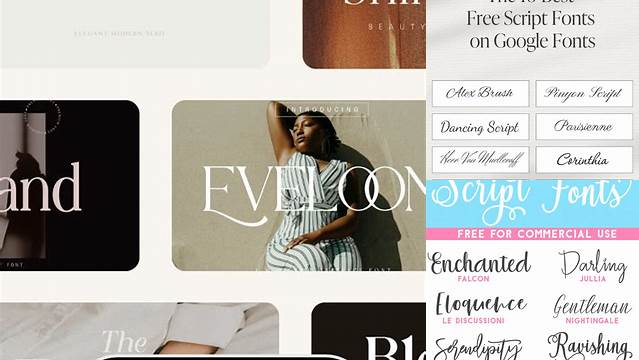
Best Free Script Fonts For Elegant Designs
Hey guys! Are you on the hunt for the best free script fonts to add a touch of elegance and personality to your projects? Look no further! In this comprehensive guide, we're diving deep into the world of script fonts, exploring a fantastic collection of free options that will help you elevate your designs. Whether you're working on wedding invitations, branding materials, websites, or social media graphics, the right script font can make all the difference. We’ll explore a curated selection of top-notch free script fonts, discuss their unique characteristics, and provide practical tips on how to use them effectively. So, let's get started and discover the perfect script font to bring your creative vision to life!
The world of typography is vast and varied, and script fonts hold a special place in it. Script fonts, with their fluid strokes and handwritten feel, can add a touch of sophistication, warmth, and personality to any design. However, finding the perfect script font can be a daunting task, especially when you're on a budget. That's where our guide comes in! We've scoured the internet to bring you a curated list of the best free script fonts available. These fonts are not only beautiful but also free for commercial use, making them a valuable resource for designers of all levels. We'll delve into different styles of script fonts, from elegant and formal to casual and playful, ensuring that you'll find the perfect fit for your project. We'll also discuss the importance of readability and context when choosing a script font, helping you avoid common pitfalls and create designs that are both visually appealing and effective. This guide is packed with practical tips and insights to help you make the most of these fantastic resources. Let’s get started!
What are Script Fonts?
Before we jump into the list, let’s quickly define what script fonts are. Script fonts are designed to mimic the flowing strokes of handwriting, giving them a personal and elegant touch. They come in various styles, from formal calligraphy to casual brush lettering, making them incredibly versatile. Script fonts draw their inspiration from traditional handwriting and calligraphy, aiming to replicate the fluidity and elegance of handwritten text. They are characterized by their flowing strokes, connecting letters, and decorative flourishes, which give them a distinctive and personal touch. This unique aesthetic makes them a popular choice for designs that need a humanistic and stylish feel. Understanding the different types of script fonts available is crucial for selecting the right one for your project. For example, formal script fonts, which closely resemble traditional calligraphy, are ideal for wedding invitations and elegant branding materials. These fonts often feature delicate lines and elaborate swirls, conveying a sense of sophistication and refinement. On the other hand, casual script fonts, which mimic more relaxed and modern handwriting styles, are perfect for projects that require a friendly and approachable tone, such as social media graphics and informal invitations. These fonts typically have thicker strokes and a more playful character.
Script fonts are commonly used in a wide array of design projects, each requiring a specific style and mood. Logos and branding materials benefit from script fonts by adding a touch of personality and memorability. A well-chosen script font can make a brand appear more sophisticated, trustworthy, or creative, depending on the desired image. Wedding invitations are another classic application for script fonts, where their elegance and romantic appeal help set the tone for the special occasion. The flowing lines and decorative elements of script fonts perfectly complement the celebratory and intimate nature of weddings. Websites and digital interfaces can also leverage script fonts to create a more engaging and personalized user experience. However, it’s essential to use script fonts sparingly and strategically in digital environments to maintain readability and avoid overwhelming the user. Print materials, such as posters, flyers, and brochures, can benefit from the visual interest that script fonts provide. By using script fonts for headings or accent text, designers can draw attention to key information and add a stylish flair to their layouts. Finally, social media graphics often incorporate script fonts to make posts stand out and convey a brand’s personality. Whether it’s for a quote, a promotional message, or a seasonal greeting, script fonts can help capture the audience’s attention and create a lasting impression.
Why Use Free Script Fonts?
Another key advantage of using free script fonts is the variety and quality available. The internet is brimming with talented designers who generously share their creations for free. This means you can find a wide range of high-quality script fonts that rival their paid counterparts. Many free script fonts are meticulously crafted with attention to detail, featuring elegant letterforms, smooth curves, and stylistic alternates. They often include a comprehensive set of characters, including uppercase and lowercase letters, numbers, punctuation marks, and special symbols, providing designers with the tools they need to create professional-looking designs. The availability of diverse styles within the realm of free script fonts ensures that designers can find the perfect match for any project. Whether it's a formal script for an elegant invitation, a playful script for a children's book, or a modern script for a branding campaign, the options are virtually limitless. The vibrant community of font designers and enthusiasts also contributes to the continuous growth and improvement of free font resources. Designers often provide updates and refinements to their fonts based on user feedback, ensuring that these fonts remain relevant and effective.
Top Free Script Fonts
Alright, let's get to the good stuff! Here are some of the best free script fonts that you can download and use today:
1. Balqis Font
Balqis is a beautifully flowing script font that exudes elegance and charm. Its delicate strokes and graceful curves make it perfect for wedding invitations, logos, and branding materials. Balqis is a stunning script font that effortlessly blends elegance and playfulness. Its flowing strokes and delicate curves make it an excellent choice for a variety of design projects, particularly those that require a touch of sophistication and personality. The font's unique characteristics, such as its subtle variations in stroke thickness and its graceful swashes, contribute to its overall visual appeal, making it a standout option among free script fonts. One of the primary uses for Balqis is in wedding invitations. The font's romantic and refined aesthetic perfectly complements the celebratory nature of weddings, adding a touch of elegance to the invitation suite. Its readability and graceful appearance ensure that the important details of the event are conveyed clearly while maintaining a stylish look. Balqis also works exceptionally well for logos and branding materials. The font's distinctive character can help a brand stand out and create a memorable impression. Whether used for a high-end boutique, a creative agency, or a lifestyle brand, Balqis can add a touch of sophistication and personality to the brand's visual identity. The versatility of Balqis extends to various other design applications. It is an excellent choice for greeting cards, where its elegant script can add a heartfelt and personal touch. Similarly, Balqis can be used in social media graphics to create visually appealing posts that capture the audience's attention. Its flowing lines and decorative elements make it ideal for headlines, quotes, and promotional messages, ensuring that the content stands out in a crowded digital landscape. In print materials, such as posters and flyers, Balqis can be used to add a touch of flair and elegance. Its graceful appearance makes it particularly effective for headings and accent text, drawing attention to key information and enhancing the overall design. The font's readability and visual appeal make it a valuable asset for any print project.
2. Great Vibes Font
If you’re looking for a classic calligraphy style, Great Vibes is an excellent choice. This font has elegant loops and flourishes, perfect for formal invitations and sophisticated designs. Great Vibes is a beautifully crafted script font that embodies elegance and sophistication. Its flowing letterforms and graceful loops make it an ideal choice for projects that require a touch of formality and refinement. The font's unique characteristics, such as its balanced proportions and delicate strokes, contribute to its timeless appeal, making it a standout option among free script fonts. A primary application for Great Vibes is in formal invitations. The font's elegant and refined aesthetic makes it perfect for events such as weddings, galas, and other special occasions. Its readability and graceful appearance ensure that the important details of the event are conveyed clearly while maintaining a sophisticated look. Great Vibes also works exceptionally well for branding materials that aim to convey a sense of luxury and sophistication. The font's classic calligraphy style can add a touch of elegance to logos, business cards, and other branding elements. Whether used for a high-end brand or a boutique service, Great Vibes can enhance the brand's visual identity and create a memorable impression. The versatility of Great Vibes extends to various other design applications. It is an excellent choice for greeting cards, where its elegant script can add a heartfelt and personal touch. Similarly, Great Vibes can be used in website headers and other prominent text elements to create a polished and refined look. Its flowing lines and decorative elements make it ideal for capturing the audience's attention and conveying a sense of sophistication. In print materials, such as certificates and awards, Great Vibes can be used to add a touch of formality and prestige. Its graceful appearance makes it particularly effective for headings and body text, enhancing the overall design and conveying a sense of accomplishment.
3. Honey Script Font
Honey Script is a charming and playful font with a handwritten feel. It’s perfect for projects that need a touch of warmth and personality, such as greeting cards and social media graphics. Honey Script is a delightful font that captures the essence of handwritten charm and playfulness. Its whimsical letterforms and flowing strokes make it an excellent choice for projects that aim to convey warmth and personality. The font's unique characteristics, such as its slightly irregular lines and cheerful aesthetic, contribute to its overall appeal, making it a standout option among free script fonts. One of the primary uses for Honey Script is in greeting cards. The font's friendly and approachable style makes it perfect for adding a personal touch to various occasions, from birthdays to thank-you notes. Its readability and cheerful appearance ensure that the message is conveyed clearly while maintaining a heartfelt tone. Honey Script also works exceptionally well for social media graphics. The font's playful character can help create engaging posts that capture the audience's attention. Whether used for quotes, announcements, or promotional messages, Honey Script can add a touch of personality and make the content stand out in a crowded digital landscape. The versatility of Honey Script extends to various other design applications. It is an excellent choice for children's books and educational materials. The font's whimsical style can make learning more fun and engaging for young readers. Similarly, Honey Script can be used in branding materials for businesses that aim to project a friendly and approachable image. Its casual and inviting aesthetic makes it suitable for logos, signage, and other branding elements. In web design, Honey Script can be used sparingly for headings and accents to create a warm and welcoming feel. Its unique character can help break up the monotony of more formal fonts and add a touch of personality to the overall design.
4. Bebas Neue Font
Okay, okay, I know what you're thinking – Bebas Neue isn't technically a script font. But hear me out! This clean and modern sans-serif font pairs beautifully with script fonts, making it a valuable addition to your font arsenal. Bebas Neue is a widely recognized and highly versatile sans-serif font that has become a staple in the design community. While not a script font, its clean lines and modern aesthetic make it an excellent choice for a variety of design projects. The font's unique characteristics, such as its tall and narrow letterforms, contribute to its contemporary appeal, making it a valuable addition to any designer's toolkit. One of the primary uses for Bebas Neue is in headlines and headings. The font's bold and impactful appearance ensures that titles stand out and capture the audience's attention. Its readability and clean design make it suitable for both print and digital applications, ensuring that the message is conveyed clearly. Bebas Neue also works exceptionally well for branding materials. The font's modern and professional aesthetic can help create a strong and cohesive brand identity. Whether used for logos, signage, or marketing collateral, Bebas Neue can add a touch of sophistication and credibility to the brand's visual communication. The versatility of Bebas Neue extends to various other design applications. It is an excellent choice for posters and flyers, where its bold appearance can effectively convey key information and attract viewers. Similarly, Bebas Neue can be used in website design for navigation menus, body text, and other essential elements. Its clean and legible design ensures a smooth user experience and enhances the overall aesthetic of the website. In editorial design, Bebas Neue can be used for magazine headlines, article titles, and captions. Its modern style can add a contemporary touch to publications and make the content more engaging. The font's adaptability to different design contexts makes it a reliable and valuable choice for various projects.
5. Kaushan Script Font
Kaushan Script is a bold and dynamic script font with a slightly rough texture. It’s perfect for adding a vintage or rustic touch to your designs. Kaushan Script is a distinctive and bold script font that brings a touch of vintage charm to any design project. Its textured strokes and dynamic letterforms create a unique and eye-catching appearance, making it an excellent choice for projects that require a rustic or handcrafted feel. The font's unique characteristics, such as its irregular lines and bold weight, contribute to its overall appeal, making it a standout option among free script fonts. One of the primary uses for Kaushan Script is in vintage-themed designs. The font's textured appearance and bold style make it perfect for creating posters, logos, and other materials that evoke a sense of nostalgia. Its readability and distinctive character ensure that the design stands out while maintaining a classic aesthetic. Kaushan Script also works exceptionally well for branding materials that aim to convey a sense of authenticity and craftsmanship. The font's rustic charm can add a personal touch to logos, business cards, and other branding elements. Whether used for a local coffee shop, a handmade goods store, or a vintage clothing boutique, Kaushan Script can enhance the brand's visual identity and create a memorable impression. The versatility of Kaushan Script extends to various other design applications. It is an excellent choice for T-shirt designs, where its bold and textured appearance can effectively convey a message or design element. Similarly, Kaushan Script can be used in posters and flyers to create a dynamic and attention-grabbing layout. Its unique style can help the design stand out and attract viewers. In social media graphics, Kaushan Script can be used for quotes, announcements, and promotional messages. Its bold and textured look ensures that the content captures the audience's attention and conveys a strong visual impact. The font's adaptability to different design contexts makes it a valuable asset for various projects.
Tips for Using Script Fonts
Now that you have a fantastic collection of free script fonts at your disposal, let's talk about how to use them effectively. Here are a few tips to keep in mind:
1. Readability is Key
While script fonts are beautiful, they can sometimes be challenging to read, especially in large blocks of text. Always prioritize readability by using script fonts sparingly, ideally for headings, logos, or short phrases. Readability is paramount when it comes to using script fonts, as their intricate and flowing designs can sometimes compromise legibility, particularly in extensive blocks of text. To ensure your message is effectively conveyed, it's crucial to use script fonts strategically and sparingly, focusing on their impact in specific design elements. Script fonts excel in headings and titles, where their decorative flair can capture attention and set the tone for the content. By limiting their use to these key areas, you can maintain readability while adding a touch of elegance and personality to your design. For body text, which requires sustained reading, it’s best to opt for more straightforward sans-serif or serif fonts that offer optimal legibility. Another effective way to use script fonts is in logos and branding materials, where a distinctive script font can create a memorable and recognizable brand identity. However, even in this context, it’s essential to ensure that the font remains legible at various sizes and in different applications. A well-designed logo should be easily readable whether it’s displayed on a business card, a website, or a billboard. Short phrases and quotes are also ideal candidates for script fonts. Their decorative nature can add emphasis and visual interest to these elements, making them stand out within the overall design. When using script fonts in this manner, consider the length of the phrase and the spacing between letters to maintain clarity. Overcrowded or overly complex script fonts can become difficult to read, diminishing their impact. In general, it's wise to pair script fonts with simpler, more legible fonts for body text and supporting elements. This contrast in styles not only enhances readability but also creates visual harmony and balance in the design. For instance, pairing an elegant script font with a clean sans-serif font can create a sophisticated and modern look. Ultimately, the key to using script fonts effectively is to strike a balance between aesthetics and legibility, ensuring that your design is both visually appealing and easy to read.
2. Consider the Context
The style of script font you choose should match the overall tone and theme of your project. A formal calligraphy script is perfect for a wedding invitation, while a playful brush script might be better suited for a children's book. The context of your design project plays a crucial role in determining the appropriate script font. The style of the font should align with the overall tone, theme, and purpose of the design to ensure a cohesive and impactful visual message. A font that feels out of place can detract from the design’s effectiveness and create a jarring experience for the viewer. For formal occasions such as weddings, galas, and upscale events, elegant calligraphy-style script fonts are an excellent choice. These fonts exude sophistication and refinement, perfectly complementing the celebratory and formal nature of the event. Their graceful strokes and decorative flourishes add a touch of luxury and timelessness to invitations, programs, and other event materials. On the other hand, playful brush script fonts are better suited for projects that require a more casual and friendly tone, such as children’s books, informal invitations, and social media graphics. These fonts often feature a handwritten feel, with slightly irregular lines and a cheerful aesthetic, making them ideal for conveying warmth and personality. Vintage-themed designs benefit from script fonts that have a rustic or textured appearance. These fonts evoke a sense of nostalgia and craftsmanship, making them perfect for logos, posters, and branding materials that aim to capture a vintage aesthetic. The slightly worn or imperfect look of these fonts can add character and authenticity to the design. When designing for modern brands and businesses, it’s essential to choose script fonts that strike a balance between elegance and contemporary style. Clean and legible script fonts with minimal ornamentation can convey a sense of sophistication without appearing overly formal. Pairing these fonts with modern sans-serif typefaces can create a polished and professional look. Ultimately, understanding the context of your project will guide you in selecting the script font that best conveys the intended message and aligns with the overall design aesthetic. Consider the audience, the purpose of the design, and the desired emotional response to ensure that your font choice enhances the effectiveness of your communication.
3. Pair Wisely
Script fonts often pair well with simple sans-serif or serif fonts. This contrast can create a visually appealing and balanced design. Pairing fonts effectively is a critical aspect of design, and when it comes to script fonts, choosing the right complementary typeface can significantly enhance the overall visual impact and readability of your project. Script fonts, with their ornate and decorative nature, often benefit from being paired with simpler, more legible fonts that provide a visual contrast and balance. One of the most common and effective pairings is script fonts with sans-serif fonts. Sans-serif fonts, characterized by their clean lines and lack of serifs (the small decorative strokes at the ends of letters), offer a modern and minimalist aesthetic that complements the elegance of script fonts. This contrast in styles creates a visually appealing hierarchy, where the script font can be used for headings or accents, while the sans-serif font provides a clear and readable body text. For example, pairing a flowing calligraphy script with a clean sans-serif font like Open Sans or Montserrat can create a sophisticated and contemporary look. Another classic pairing is script fonts with serif fonts. Serif fonts, which feature serifs, have a more traditional and formal appearance, making them a good match for script fonts that convey a sense of elegance and sophistication. The contrast between the decorative script and the structured serif font can create a visually balanced design that feels both timeless and refined. Pairing a script font like Great Vibes with a serif font such as Merriweather or Playfair Display can create a classic and polished look. When pairing fonts, it’s essential to consider the weight and size of each font to ensure they work harmoniously together. A script font that is too heavy or bold may overwhelm a delicate sans-serif or serif font, while a script font that is too light may get lost in the mix. Adjusting the font sizes and weights can help create a visual hierarchy that guides the reader’s eye and enhances readability. Ultimately, the key to pairing fonts wisely is to experiment and trust your instincts. Try out different combinations and assess how they look together in the context of your design. A well-paired font combination should enhance the overall aesthetic of your project, making it visually appealing and easy to read.
So there you have it! A fantastic collection of the best free script fonts to elevate your designs. Remember to consider readability, context, and pairing when choosing the perfect font for your project. With these tips and resources, you'll be creating stunning designs in no time. Happy designing, guys! To summarize, we've explored a diverse range of free script fonts, highlighting their unique characteristics and potential applications. From elegant calligraphy-style fonts perfect for formal invitations to playful brush scripts ideal for social media graphics, there's a script font to suit every project. We've also emphasized the importance of considering readability, context, and font pairing to ensure that your designs are not only visually appealing but also effective in conveying your message. By leveraging the resources and tips provided in this guide, you'll be well-equipped to create stunning designs that capture attention and leave a lasting impression. Remember to experiment with different fonts and combinations to discover your personal style and preferences. Design is a creative journey, and the right font can be a powerful tool in bringing your vision to life. So, go ahead, explore the world of free script fonts, and let your creativity soar!